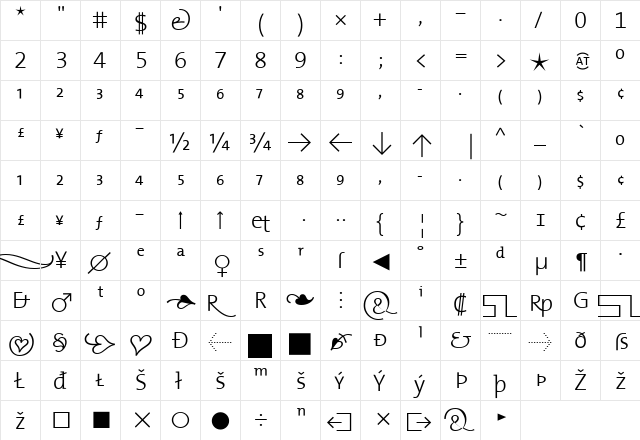
The Mix Light- Regular Font Preview
The Mix Light- Regular
The Mix Light- Regular Font Details
Design Context for The Mix Light- Typeface
The Mix Light- takes a measured approach to typography — its balanced proportions and neutral character make it a reliable workhorse for both digital and print work. Its slender proportions lend an understated elegance to any composition.